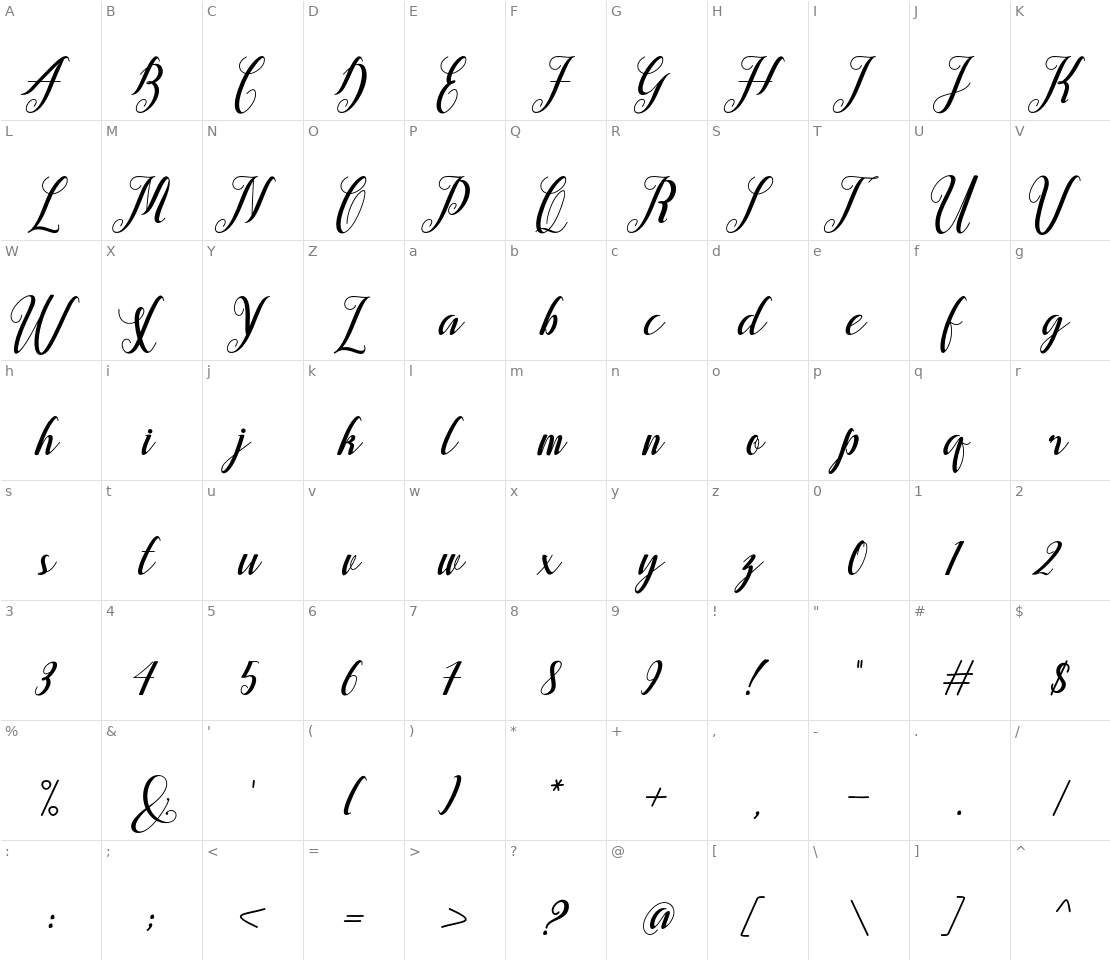
Alongtime
Alongtime is an elegant calligraphic script by Zulfikar Ali with flowing, connected letterforms that carry a distinctly feminine and romantic sensibility. The strokes feel deliberate and graceful, with the kind of sweeping curves and delicate contrast you'd expect on wedding invitations, event stationery, and upscale branding. It's a decorative face through and through, best reserved for short text where the ornamental detail can do the talking.